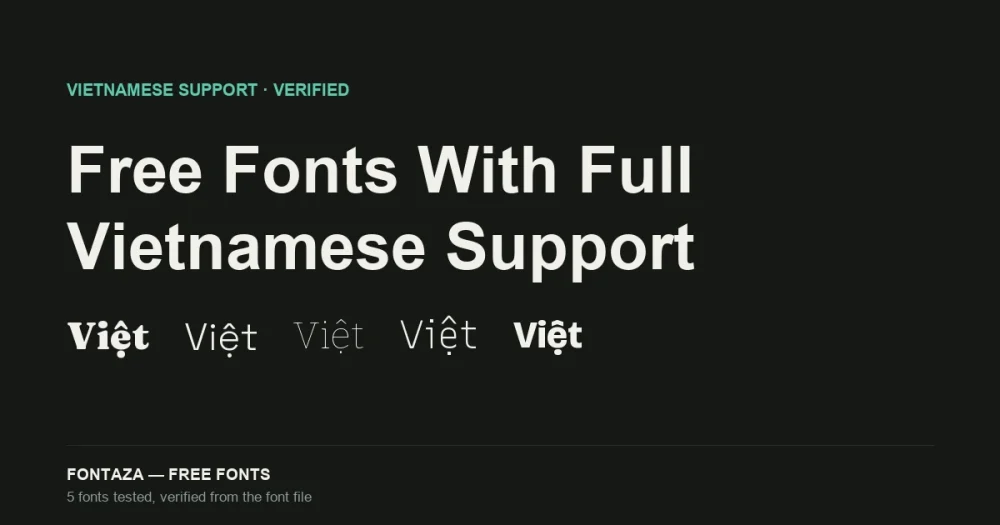
Search any free-font roundup for “best fonts for Vietnamese” and you’ll get lists built from vendor marketing copy — “supports 40+ languages” banners that rarely specify which 40. Vietnamese is a demanding case: it needs precomposed characters for every combination of a base Latin letter, a diacritic mark (circumflex, breve, horn), and a tone mark (acute, grave, hook, tilde, dot below) — stacked two and sometimes three deep, like ệ, ữ, ỗ.
A font can claim broad “Latin Extended” support and still be missing exactly the combinations Vietnamese needs, because most of those combinations live in a specific Unicode block — Latin Extended Additional (U+1E00–U+1EFF) — that a lot of font families simply don’t fill out.
We don’t guess. We test the character set of every font against a probe string covering every precomposed Vietnamese character and report only what’s actually there.
How the test works
Each font’s cmap table is checked against 134 precomposed Vietnamese characters (uppercase and lowercase) spanning the six base vowels that take Vietnamese-specific diacritics (ă, â, đ, ê, ô, ơ, ư) combined with all five tone marks. A font either has the glyph for a given codepoint or it doesn’t — there’s no partial credit at the character level, though we do report fonts that cover most but not all of the set as partial.
“Full support” below means 100% — every character in the test set is present as an actual glyph in the font file.
Verified full support
| Font | Glyphs | Latin Ext. Additional coverage | Best for |
|---|---|---|---|
| Bitter | 1,542 | 164 / 256 | Long-form reading, editorial, documentation |
| Recursive | 1,304 | 164 / 256 | Product UI, code + interface systems |
| Space Grotesk | 1,001 | 168 / 256 | Tech/SaaS branding, dashboards |
| Fraunces | 698 | 154 / 256 | Editorial headlines, packaging, wedding |
| Bricolage Grotesque | 597 | 97 / 256 | Product marketing, SaaS landing pages |
All five pass the full stacked-diacritic test — ệ, ữ, ỗ, ẫ, ặ and every other combination render correctly, not as a base letter with a floating mark or a missing-glyph box.
Note the coverage numbers don’t need to hit 256/256 to fully support Vietnamese — the Latin Extended Additional block also contains characters for Vietnamese-adjacent needs and other Latin-based languages that Vietnamese text doesn’t use. What matters is whether the specific 134 Vietnamese-relevant characters are present, and for all five, they are.
Also worth noting: glyph count doesn’t predict this. Bricolage Grotesque has the fewest total glyphs of the five (597) and still passes completely — it’s a display font with a narrow overall character set that was still built out carefully where it counts. Don’t assume “more glyphs” means “better Vietnamese support.”
A real failure case: Caveat
Not every font on this site passes. Caveat, the popular free casual handwriting font, only reaches 34 of 256 characters in the Latin Extended Additional block — it covers Cyrillic fully but leaves most Vietnamese stacked-diacritic combinations unsupported. We’re flagging it rather than quietly leaving it off this list, because “which fonts fail” is exactly the information vendor pages never volunteer. See the full Caveat breakdown for what specifically is and isn’t covered.
Why this happens: a common failure pattern
Across the free-font space generally, the most common way a font fails this test isn’t missing Vietnamese entirely — it’s covering the base diacritics (ă, â, ê, ô, ơ, ư without tone marks) but not the stacked combination with a tone mark on top. That’s the harder engineering problem: it means drawing and hinting dozens of extra precomposed glyphs rather than relying on generic mark-positioning. A font that handles French or Spanish accents fine can still fail here, because Vietnamese stacking depth is unusual even among Latin-script languages — Caveat above is a direct example: strong Cyrillic coverage, weak Vietnamese coverage, in the same file.
If you’re evaluating a font that isn’t listed on this page yet, the fastest manual check: type “tuyệt vời” in it. If both words render with intact stacked marks and no visible substitution box, it’s a reasonable sign — though the full test above checks the entire character set, not just one phrase.